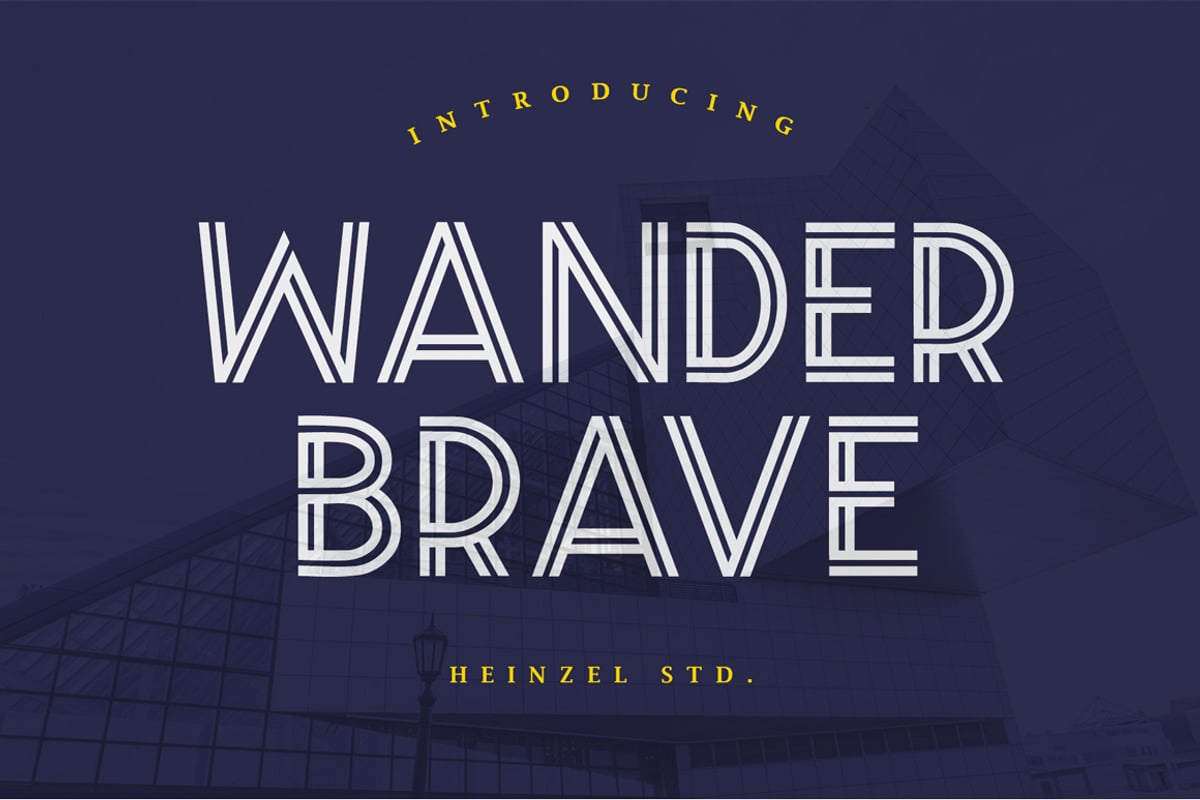
Wander Brave Modern Typeface
Give your headlines a serious edge with Wander Brave — the bold, sporty typeface built for impact.
Wander Brave is a unique sans serif typeface with a modern, adventurous character. Designed to make titles punch harder, it blends a clean geometric structure with a distinctive inline stripe detail that sets it apart from the crowd.
Perfect for posters, branding, logos, editorial layouts, and any project that demands bold, confident typography.